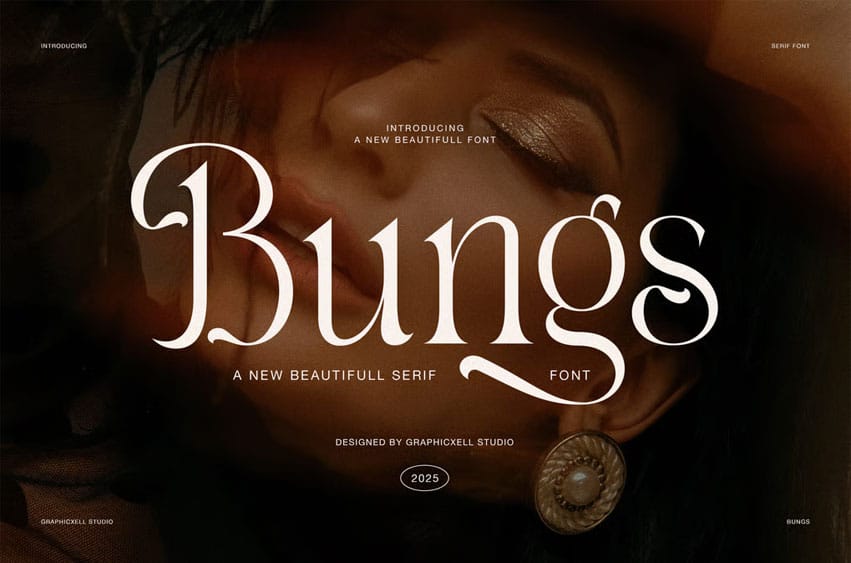
Bungs Font is an elegant modern serif font crafted to express luxury, balance, and refined character. It features smooth curves, high contrast strokes, and graceful terminals. Because each letter feels intentional, Bungs delivers visual confidence without sacrificing clarity.
This serif font blends classic heritage with contemporary elegance. As a result, designers choose Bungs for fashion editorials, interior branding, and premium lifestyle projects. Moreover, the stylish alternates add personality while keeping layouts calm and structured. Every glyph supports a polished and timeless appearance.
Bungs works beautifully for designers who value detail and atmosphere. Therefore, it fits perfectly in logos, magazine headlines, hotel identities, and boutique branding. In addition, it performs strongly in large display text, where contrast and elegance matter most.
Why choose Bungs Serif Font?
- Elegant serif style with modern contrast
- Unique alternates for expressive typography
- Clear readability for print and digital design
- Ideal for fashion, interior, and editorial branding
- Timeless look with a contemporary feel
Furthermore, Bungs adapts smoothly across creative industries. Whether you design for architecture studios, lifestyle brands, cafés, or luxury products, this font adds warmth and authority. Because spacing stays balanced, Bungs pairs beautifully with clean sans-serif fonts.
Bungs does more than display text. Instead, it shapes mood and storytelling. Each serif feels refined, while each curve feels controlled. Consequently, your designs appear confident, tasteful, and memorable.
Ultimately, Bungs offers a modern serif solution for designers who seek elegance and versatility. Use it to elevate branding, enrich layouts, and communicate sophistication with ease.